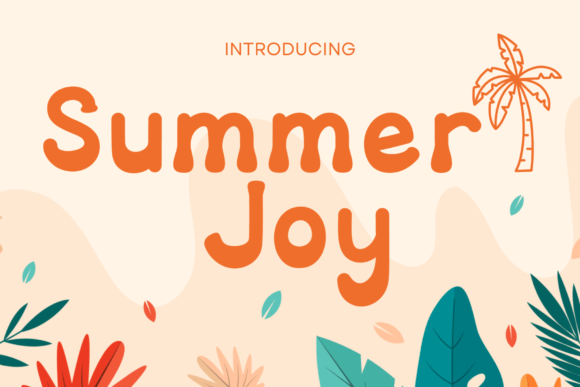
Venture into a world of vibrant and playful expression with Summer Joy Font, the ultimate display font designed to ignite your designs with a burst of groovy charm. Crafted by the ingenious minds at AEN Creative Studio, Summer Joy is not just a font; it's an invitation to let your imagination run wild and create captivating designs that resonate with joy and good vibes.
Picture this: a whimsical T-shirt adorned with Summer Joy's cheerful characters, spreading smiles wherever it goes. Or, envision an eye-catching banner, pulsating with vibrant colors and playful typography, drawing attention like a magnet. From cozy pillows that invite you to sink into a world of comfort to mugs that radiate positivity with every sip, Summer Joy transforms ordinary objects into expressions of pure delight.
Unleash your creativity and explore endless possibilities with Summer Joy. Design social media posts that pop with personality, captivating your audience with every scroll. Create stationery that exudes charm and uniqueness, leaving a lasting impression on recipients. Whether you're crafting invitations for a special occasion or designing business cards that make a statement, Summer Joy is your trusty companion, adding a touch of whimsy to every project.
Summer Joy's versatility knows no bounds. Its playful nature lends itself perfectly to children's designs, evoking laughter and imagination. Fashionistas can rejoice, as Summer Joy effortlessly elevates any apparel with its groovy touch. And for those seeking a touch of playfulness in their branding, Summer Joy delivers, infusing logos and marketing materials with an infectious energy that sets you apart from the crowd.
But Summer Joy is more than just a font; it's an experience. It's a journey into a world where joy and creativity dance hand in hand. Embrace Summer Joy and let its infectious energy infuse your designs with a burst of vibrancy that will leave a lasting impression on all who encounter it.